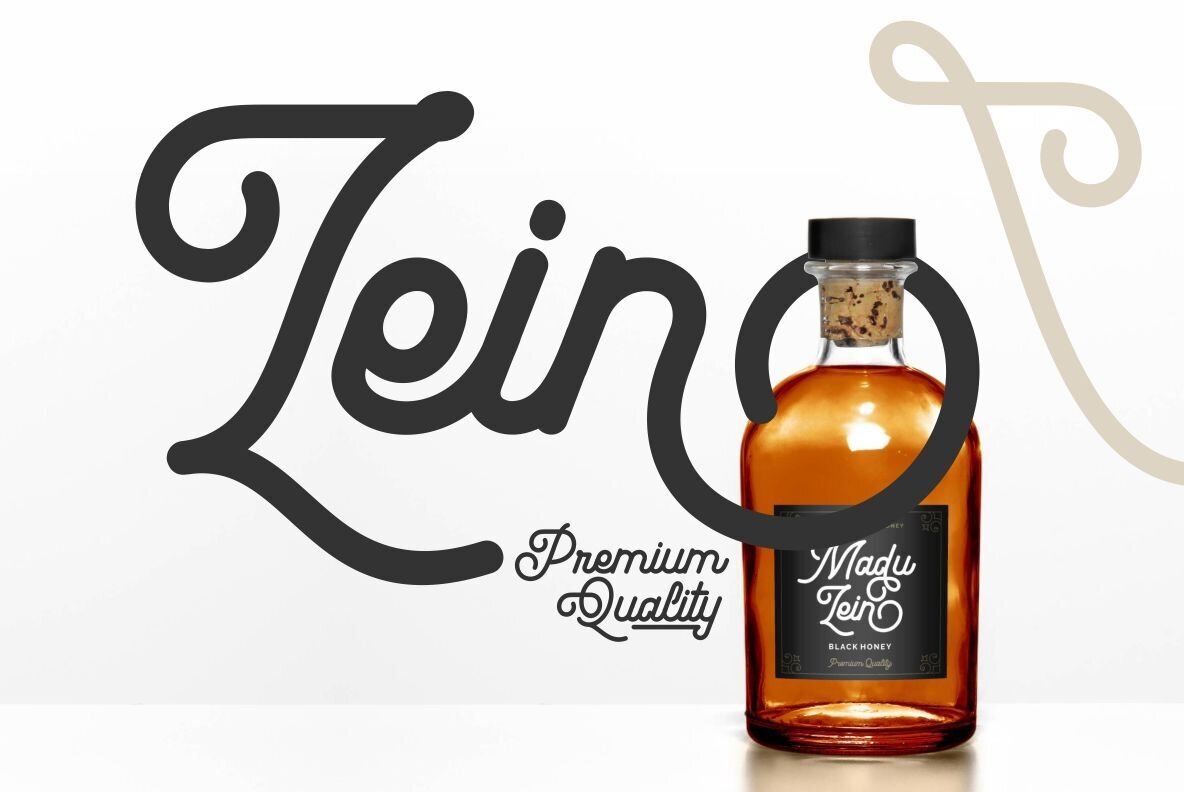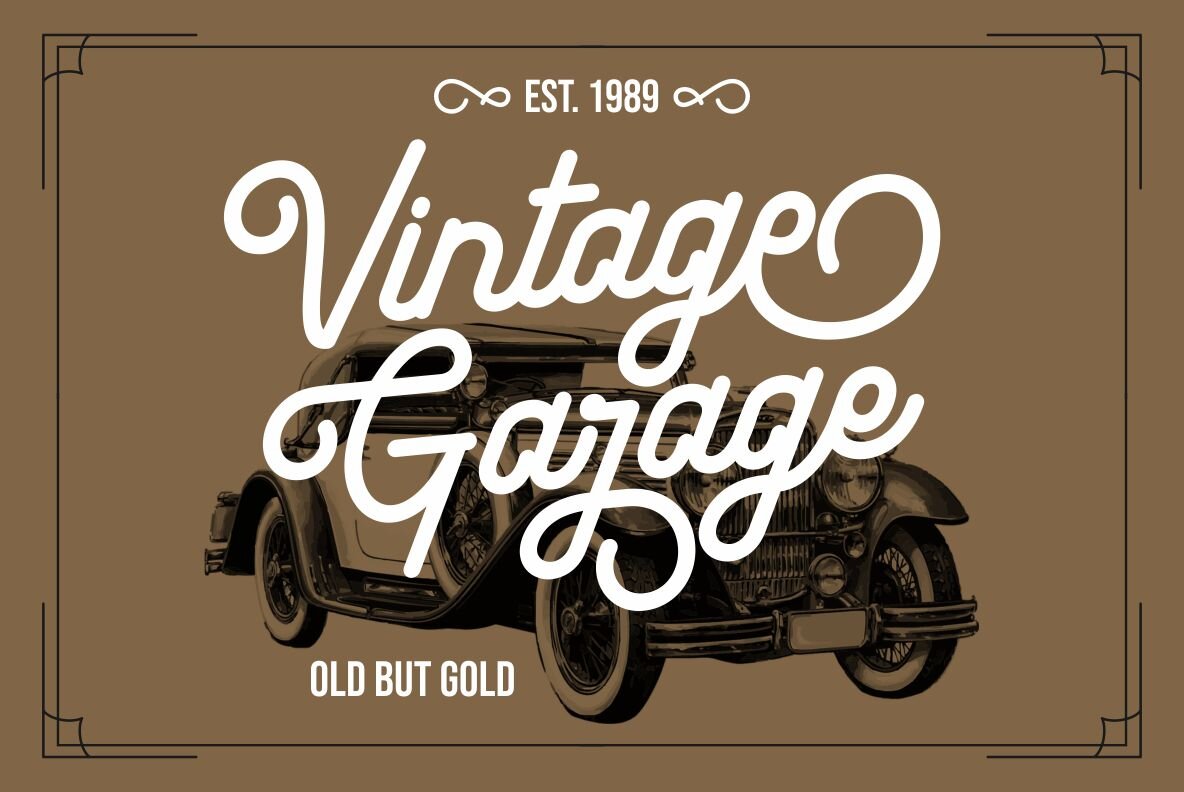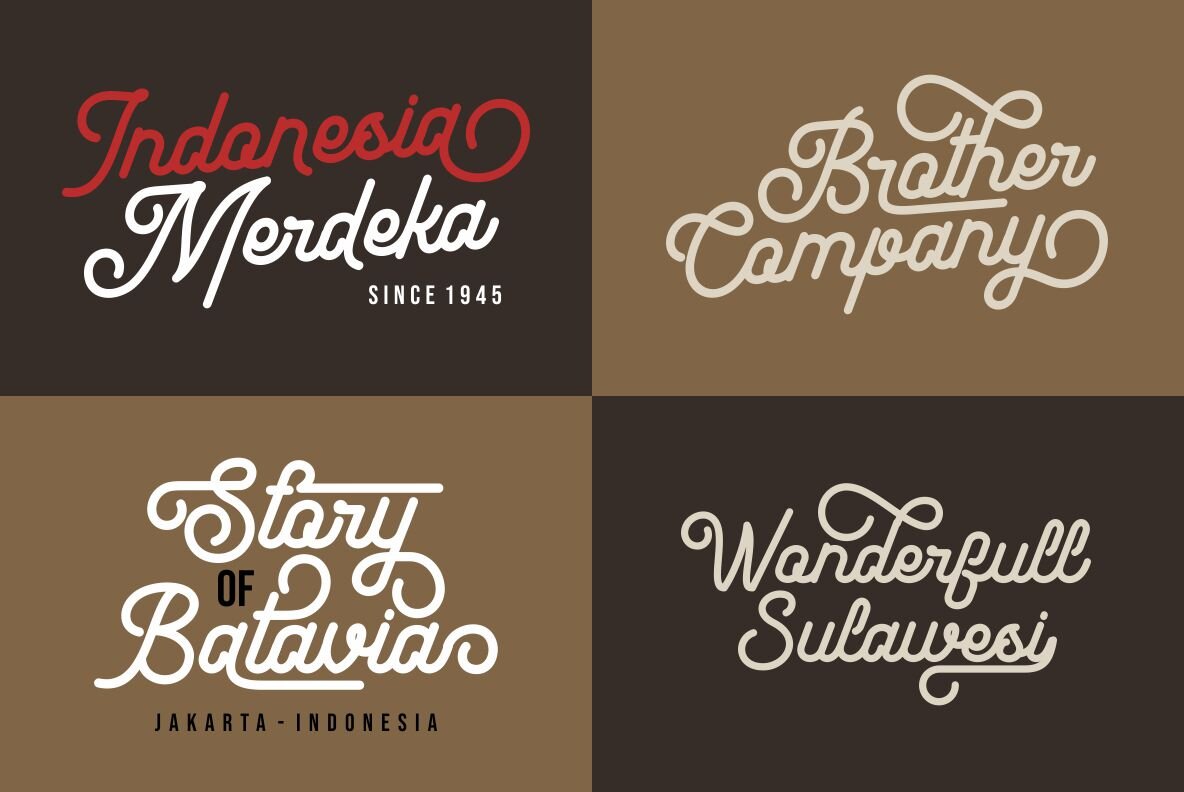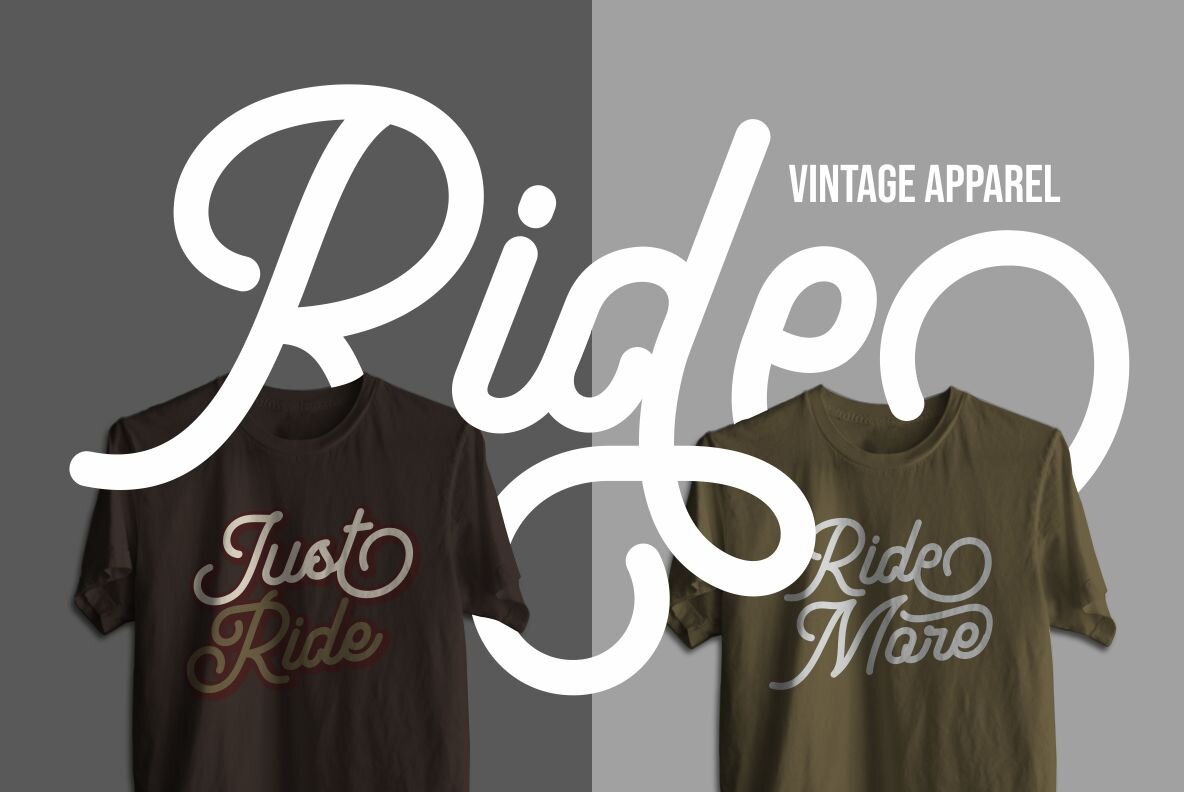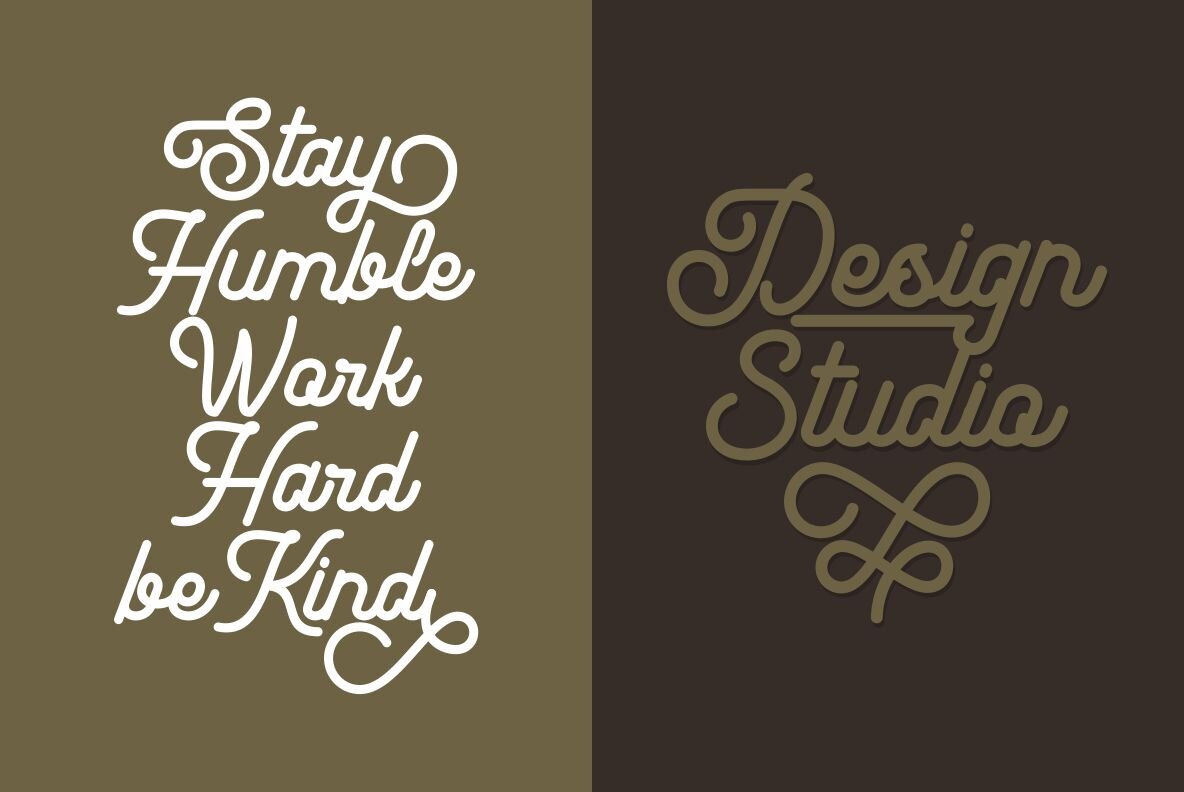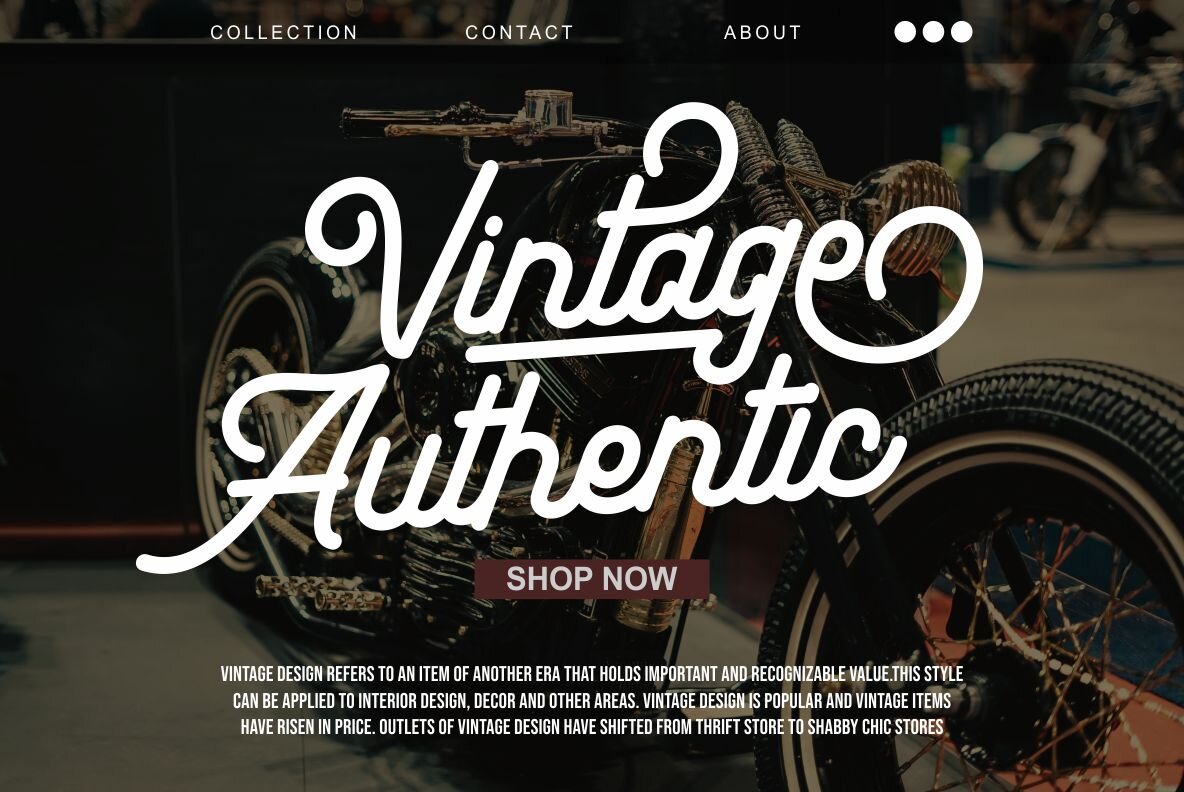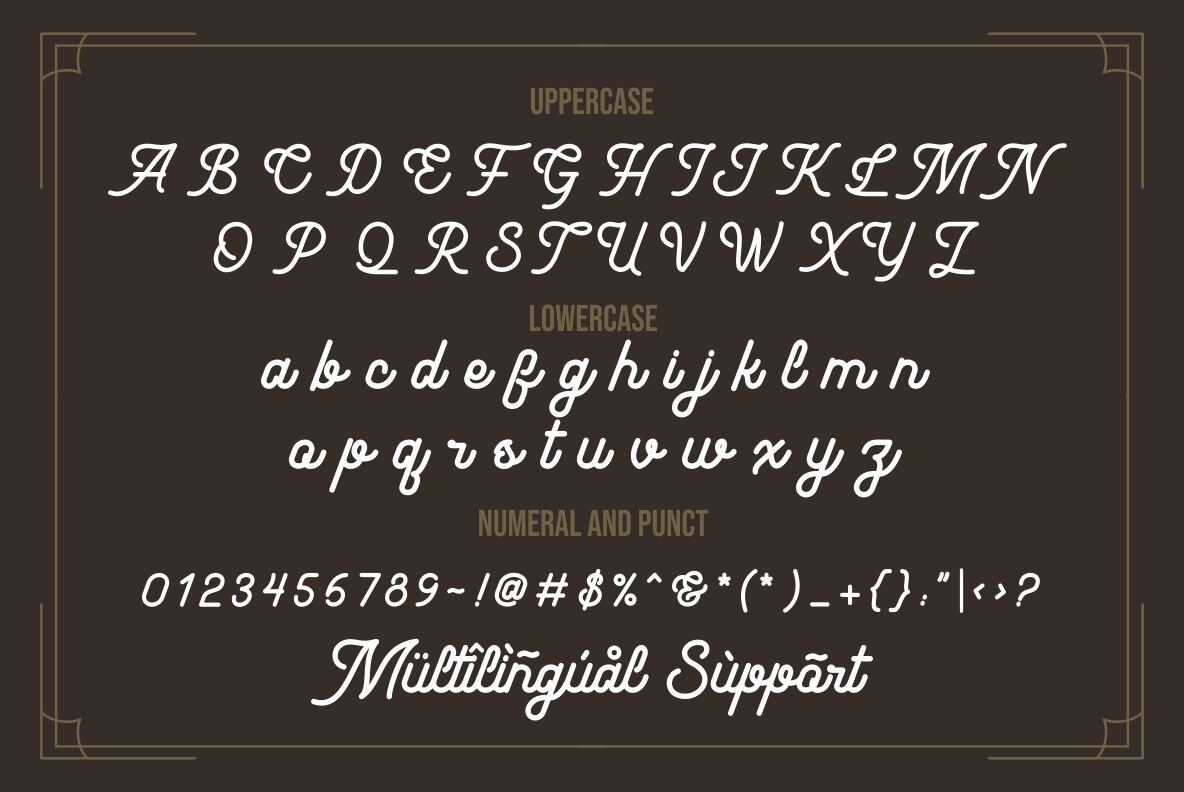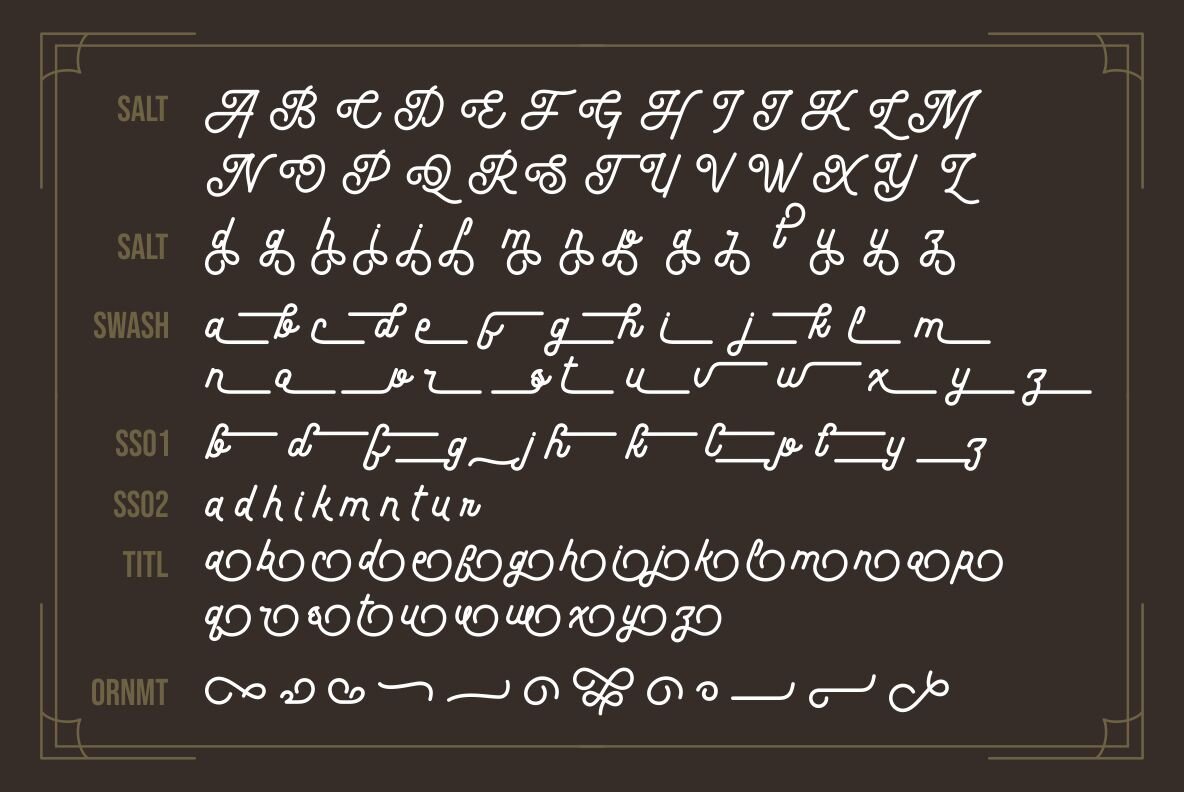
Fireclay Font
Fireclay Regular
Fireclay is a sophisticated font that brings a refined touch to a variety of design projects. Ideal for logotypes, apparel, branding, and packaging, Fireclay delivers a unique style with its comprehensive character set, including uppercase, lowercase, punctuation, symbols, numerals, stylistic alternates, and ending swashes. The typeface seamlessly supports multilingual needs, ensuring versatility across global applications—from advertisements to wedding invitations. Fireclay embraces every nuance of a designer's vision, making it an excellent choice for logos, photography, product packaging, and more. Whether you're crafting eye-catching stationery or unforgettable advertisements, this font is tailored to elevate your project's visual impact. Easy-to-access swashes ensure a seamless integration in your creative process, allowing for a polished finish to any design work.Fireclay: A Versatile Typeface for Distinctive Branding